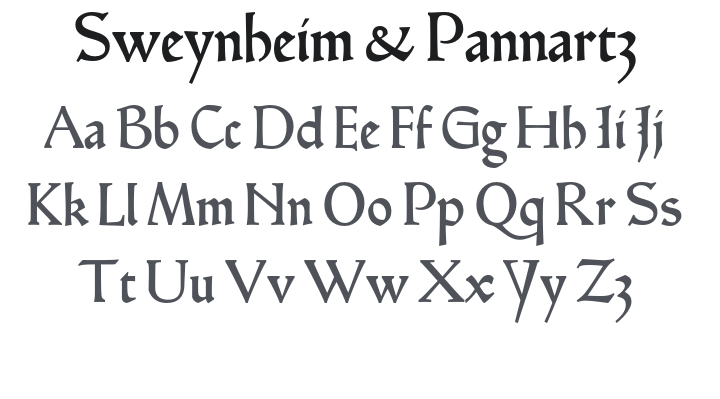
Sweynheim & Pannartz Font Family
About Sweynheim & Pannartz
Sweynheim & Pannartz ‘Subiaco’ 120R, Proto-Roman first used in Subiaco by Konrad Sweynheim & Arnold Pannartz, for an edition of Donatus in 1465 (no longer preserved) and used until 1467 in four editions in total. Type design workshop with students of ANRT at Biblioteca Statale del Monumento Nazionale di Santa Scolastica, Subiaco, May 2018.
Sweynheim & Pannartz 115R, Proto-Roman first used in Rome by Konrad Sweynheim & Arnold Pannartz, for Cicero’s Epistolae ad familiares in 1467 and used until 1476. Type design workshop with students of ANRT at Biblioteca Statale del Monumento Nazionale di Santa Scolastica, Subiaco, May 2018.